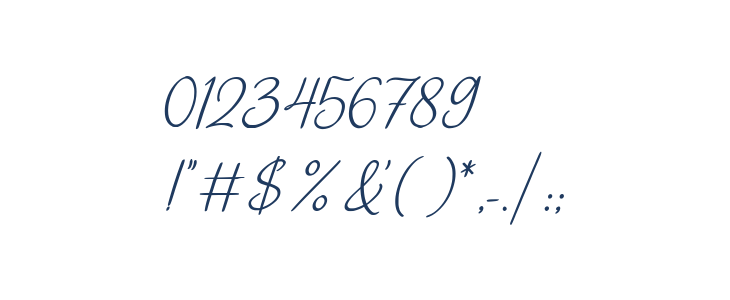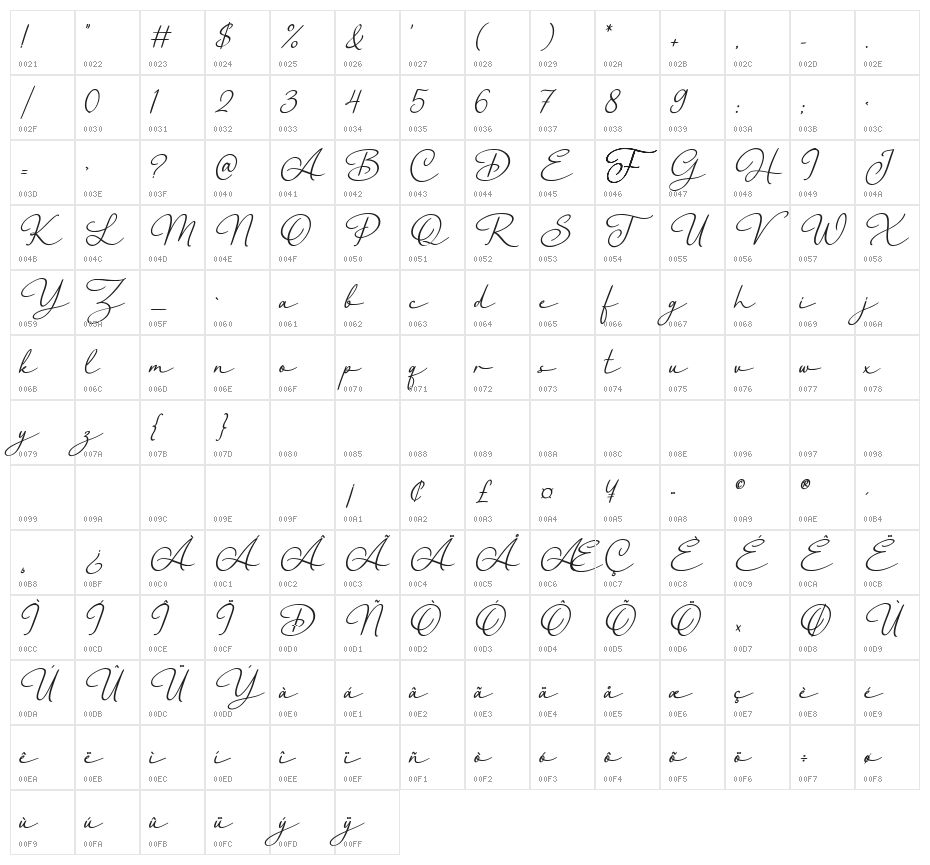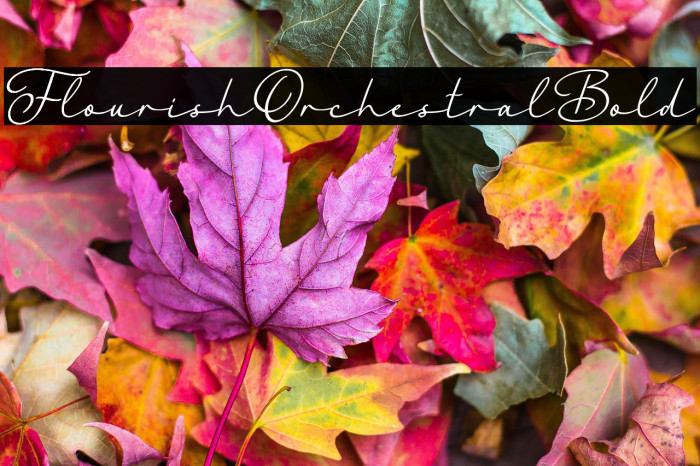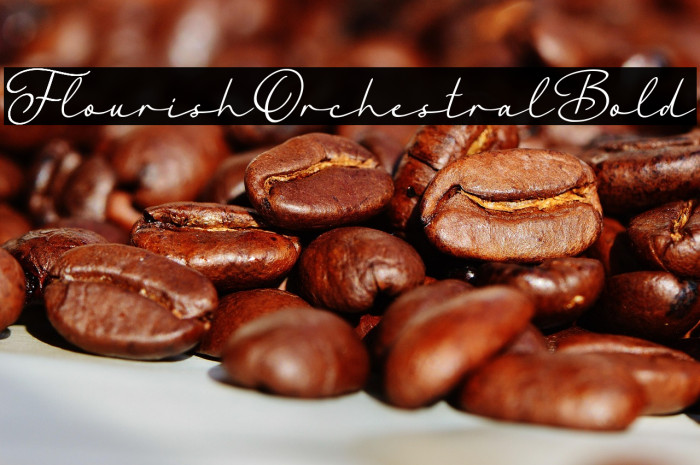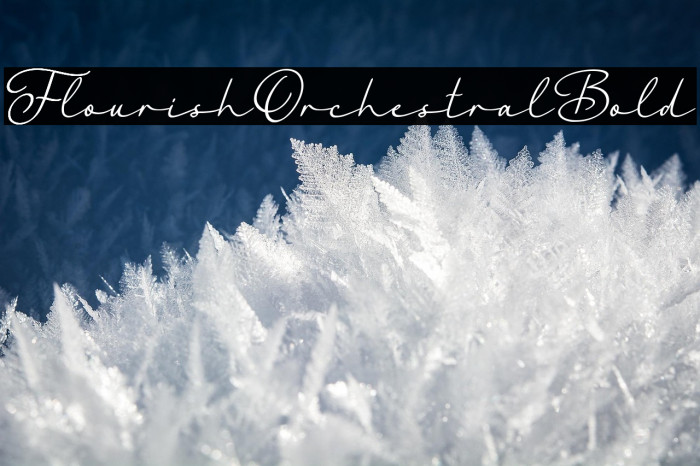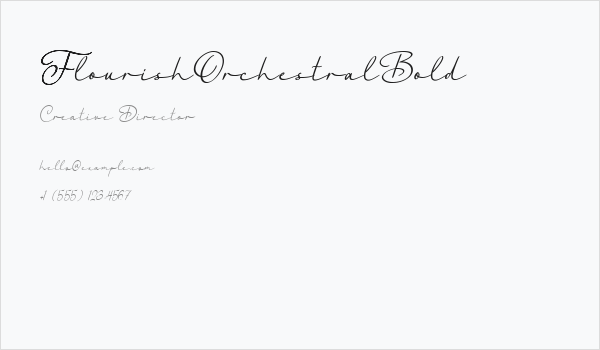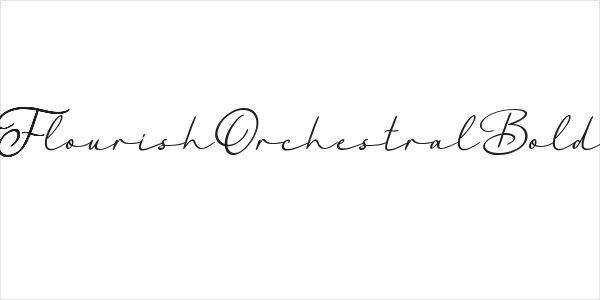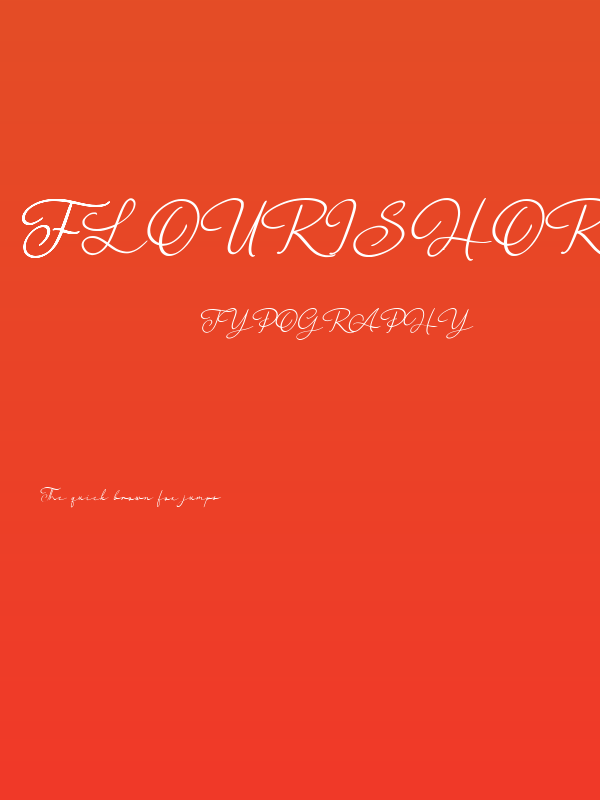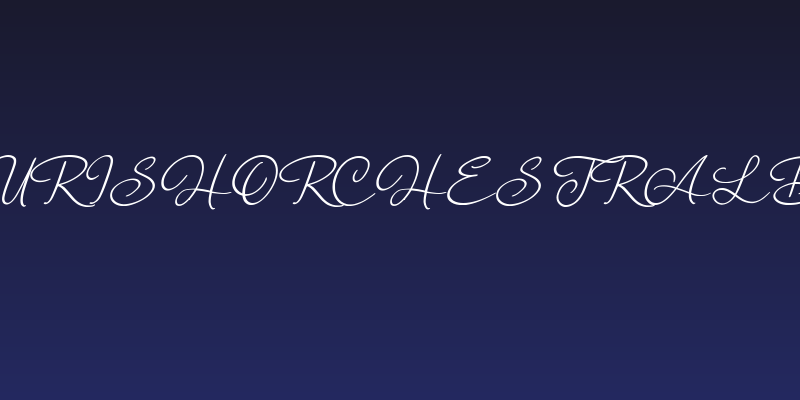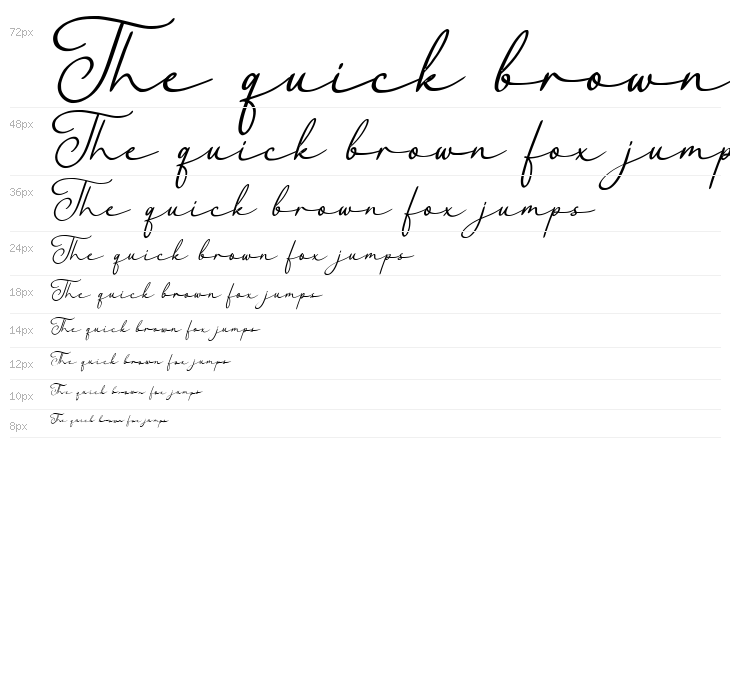
FlourishOrchestralBold Font
FlourishOrchestralBold Description
This elegant script font features flowing, cursive letters with a refined and sophisticated appearance. The uppercase letters are gracefully connected, while the lowercase letters exhibit a smooth, continuous stroke that enhances readability. The numerals are stylishly crafted, maintaining the font's overall fluidity. Special characters are designed with the same attention to detail, ensuring consistency across all glyphs. The font's delicate curves and loops give it a romantic and artistic flair, making it ideal for creative projects that require a touch of elegance.
| Overall Style | Elegant, Artistic |
| Use Case | Invitations, Branding, Artistic projects |
| Proposed Projects | Ideal for wedding invitations, greeting cards, elegant branding, and artistic projects. |